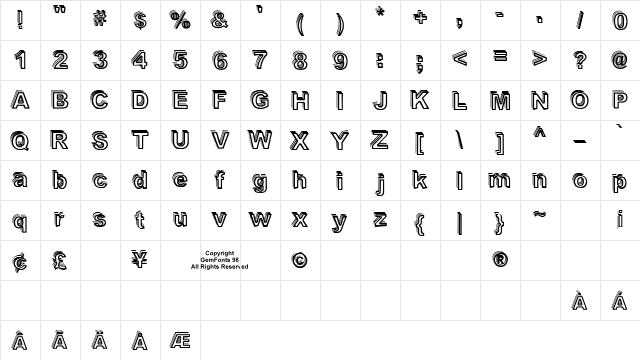
Vale Shadow Regular
Design Context for Vale Shadow Typeface
Vale Shadow is built around its visual character rather than neutral utility — its distinctive forms are designed to make an impression at display sizes.
Font Pairing: Pair with a clean neutral sans-serif for body copy to let Vale Shadow's character lead without overwhelming the composition.
Pro Tip: Treat Vale Shadow as the centrepiece of your typographic hierarchy. One strong heading set in a decorative face can carry an entire layout.